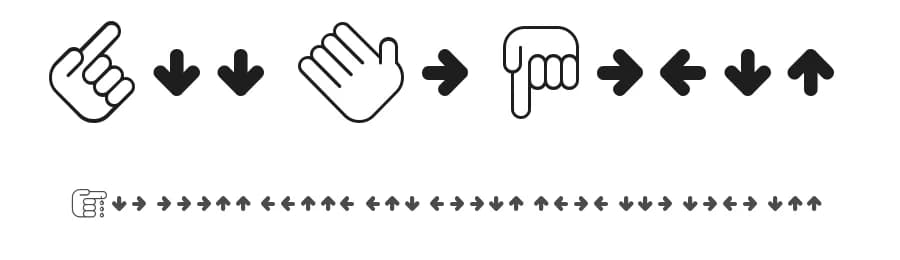
About All My Hands Font
All My Hands is a dingbat font designed by Lindkvist. It includes 229 glyphs, a regular weight, TTF (TrueType) format, and 207 languages. All My Hands is free to download; check the license details on this page before commercial use. Dingbat fonts like All My Hands work best for icons, ornaments, bullet points, and decorative accents.
All My Hands Font is a versatile dingbats font that works for both headings and body text. Pair it with a contrasting sans-serif or serif font to add visual interest and a clear distinction between titles and body copy.
All My Hands Font
by Lindkvist
All My Hands Font is a dingbats typeface by Lindkvist, ideal for logos, invitations, branding, and creative projects.